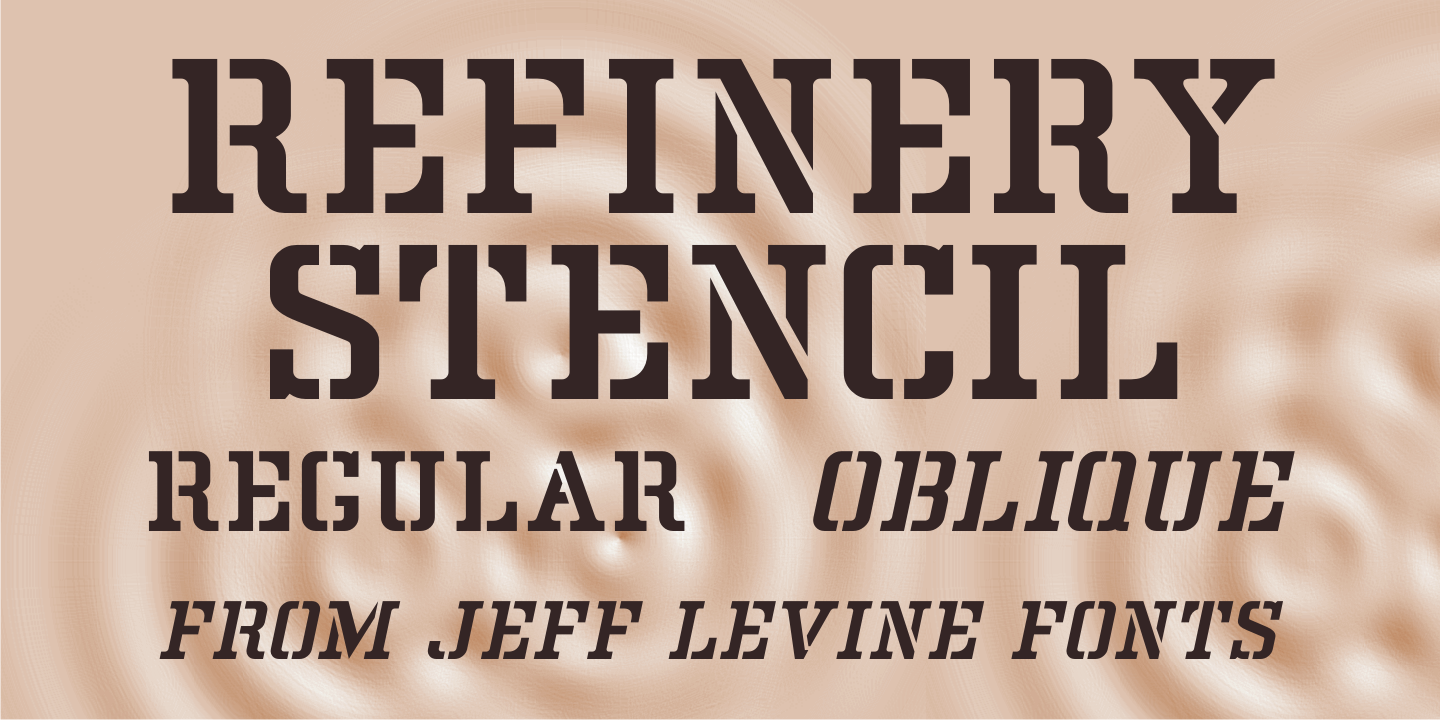
The Refinery Stencil JNL Font is an excellent choice for designs that aim for a bold, industrial, and distinctly utilitarian aesthetic, reminiscent of classic military stencils, shipping crates, or factory signage. Imagine it boldly stamped on modern product packaging, adding an authentic, robust feel to urban streetwear branding, or bringing a rugged edge to adventure gear. It's also perfectly suited for energetic event posters, construction company logos, warning signs, and any project where you want to convey a sense of strength, durability, and raw, functional design. Its often sharp, unadorned forms, and impactful presence make it ideal for conveying authority and a no-nonsense attitude.
What makes the Refinery Stencil JNL Font so exciting is its inherent ability to evoke themes of efficiency, heavy machinery, and a distinct, tactile quality. It frequently features segmented or "cut-out" letterforms that mimic traditional stenciling, giving it a unique visual texture and a strong graphic appeal. This font has a powerful and straightforward personality that can instantly elevate your design, making it feel both impactful and authentically industrial. It's designed to capture attention with its raw honesty, ensuring your message is not just seen, but resonates with a sense of purpose and strength.
The Refinery Stencil JNL Font family typically might focus on a few key weights to best convey its strong character, possibly including specialized symbols or alternative number forms that enhance its utilitarian appeal. While it might not always have an extensive range of stylistic variations beyond its core purpose, its strength lies in its precise visual style and inherent expressiveness. These variations empower designers to create truly commanding and memorable displays, ensuring the Refinery Stencil JNL Font Free Download can adapt to a wide array of projects while maintaining its signature, unyielding charm.